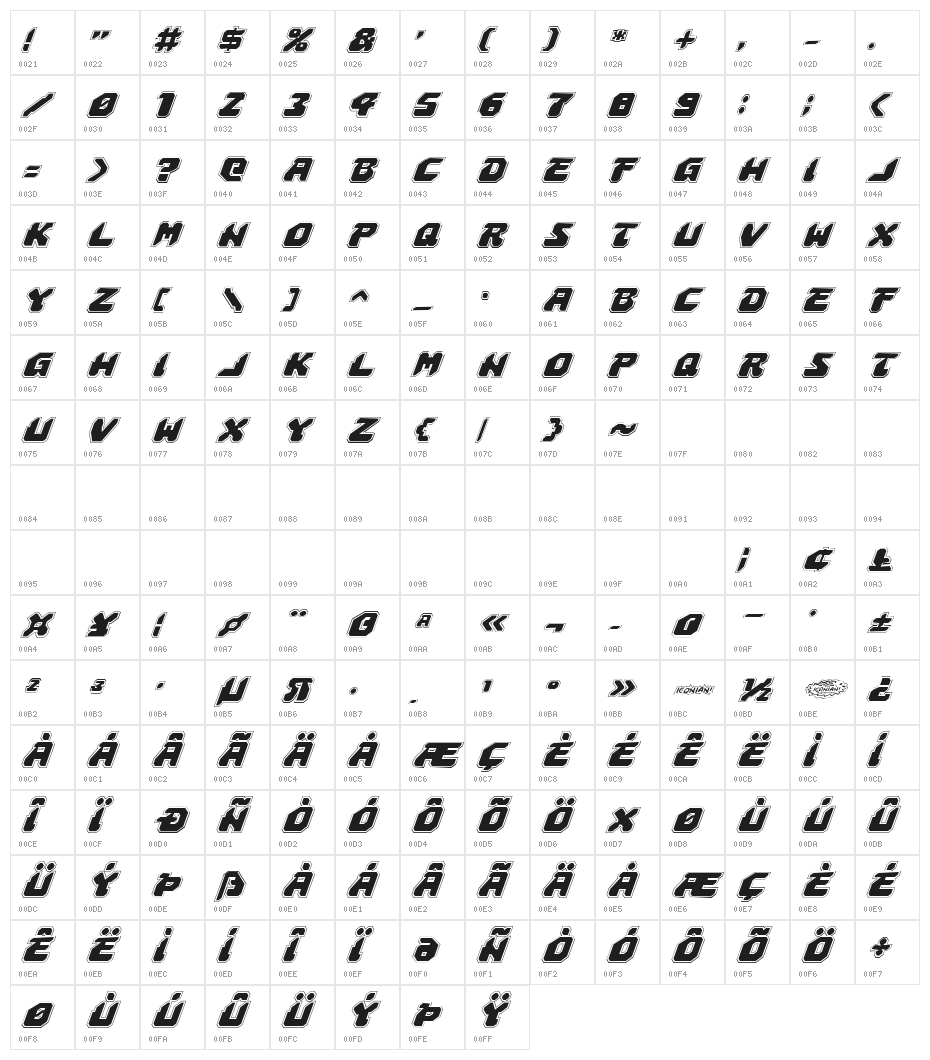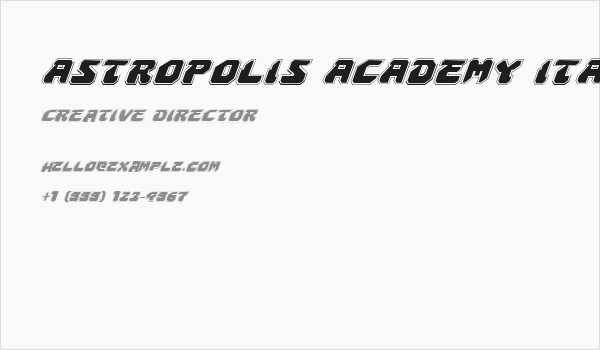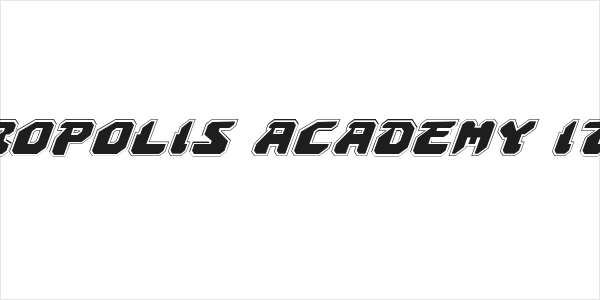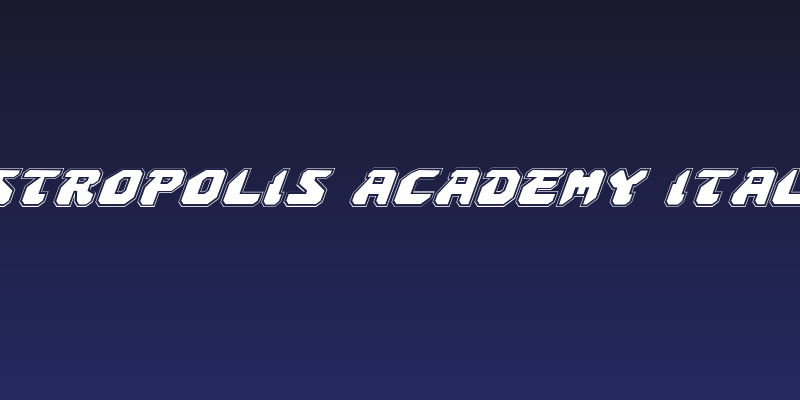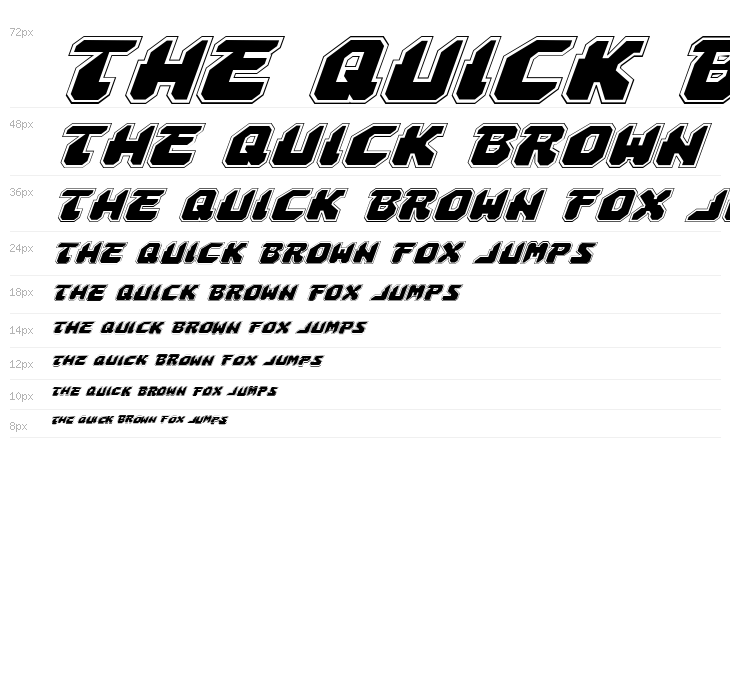
Astropolis Academy Italic Font
Astropolis Academy Italic Description
This font exhibits a bold, futuristic style with a strong emphasis on geometric shapes and sharp angles. The characters are outlined, giving them a three-dimensional appearance, which adds depth and dynamism. The italic slant enhances the sense of motion and speed, making it ideal for projects that require a modern and energetic look. The uppercase and lowercase letters maintain a consistent style, while the numbers and special characters complement the overall design. The font's boldness and unique style make it stand out, suitable for eye-catching headlines or branding.
Proposed ProjectsIdeal for sci-fi themed designs, technology branding, video game titles, and dynamic posters.